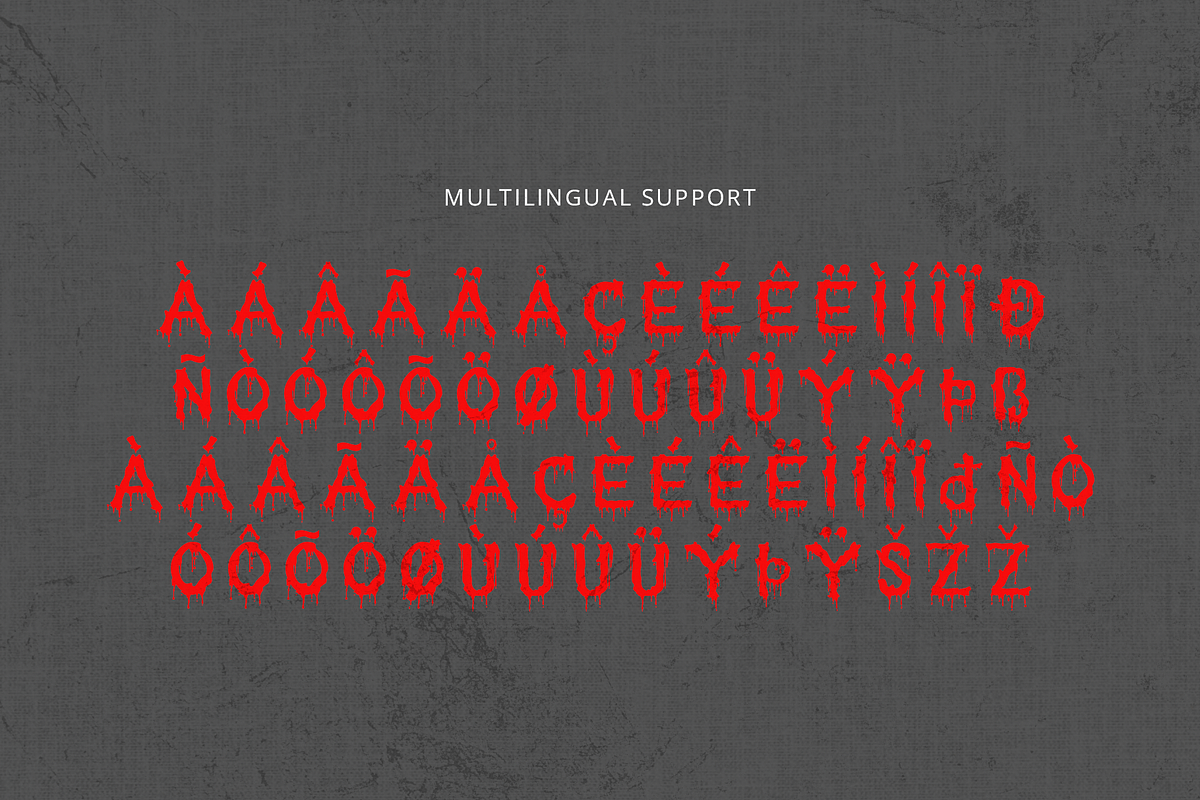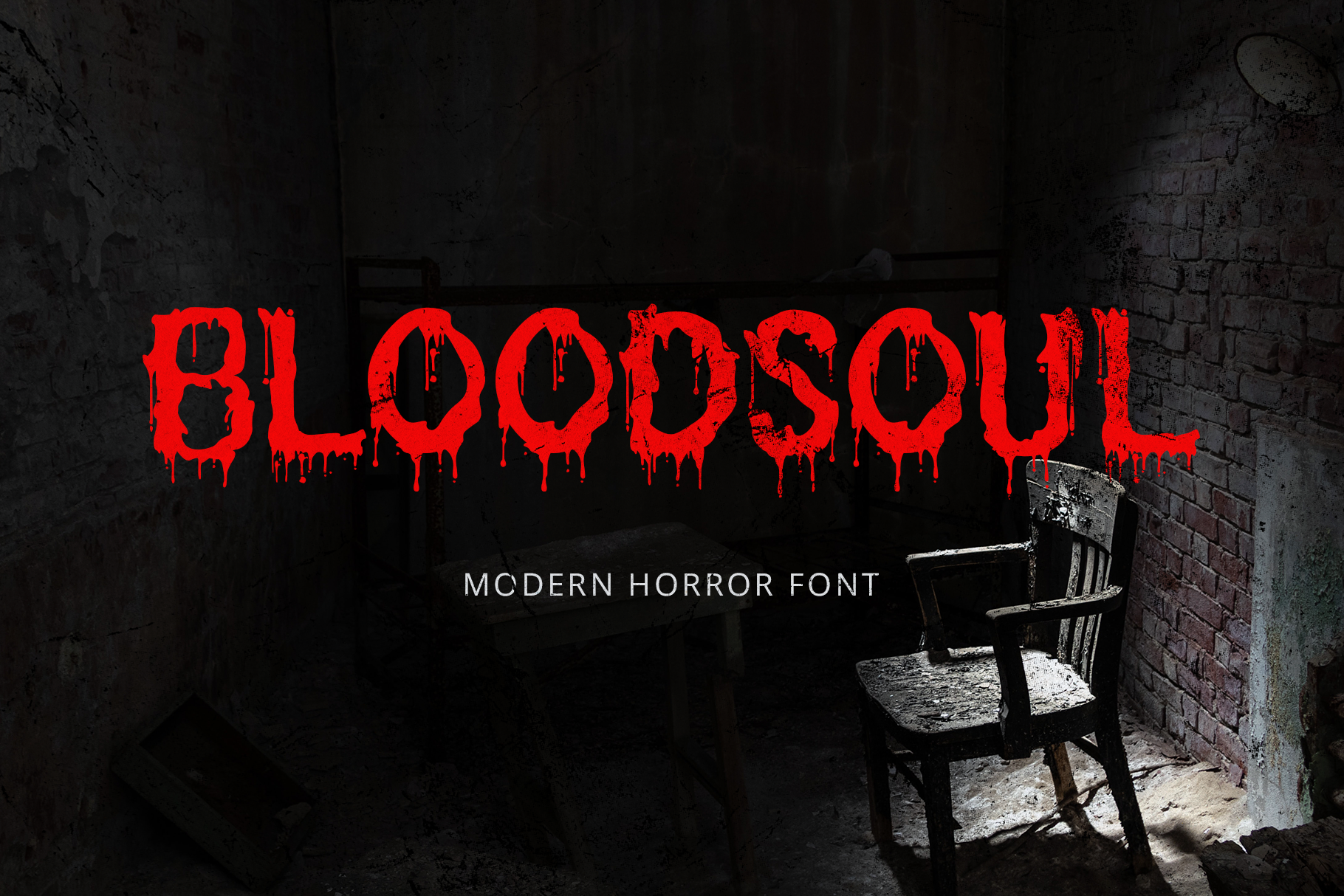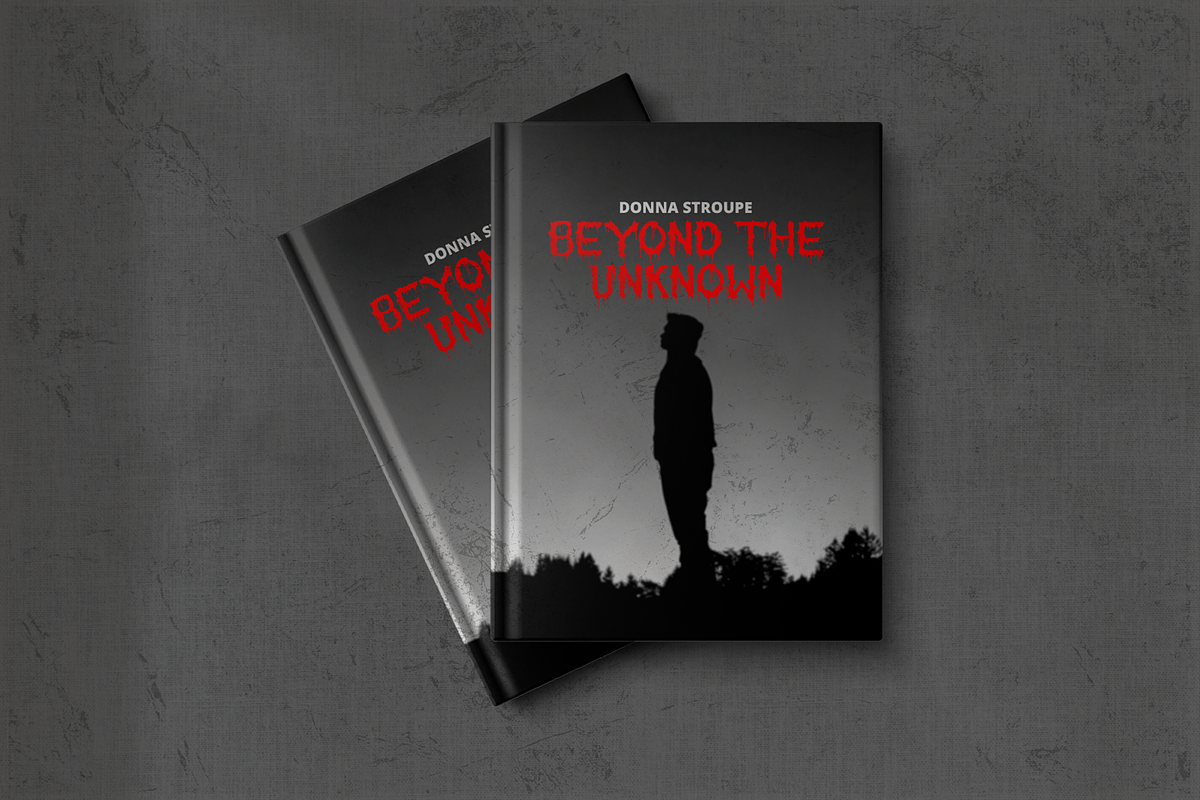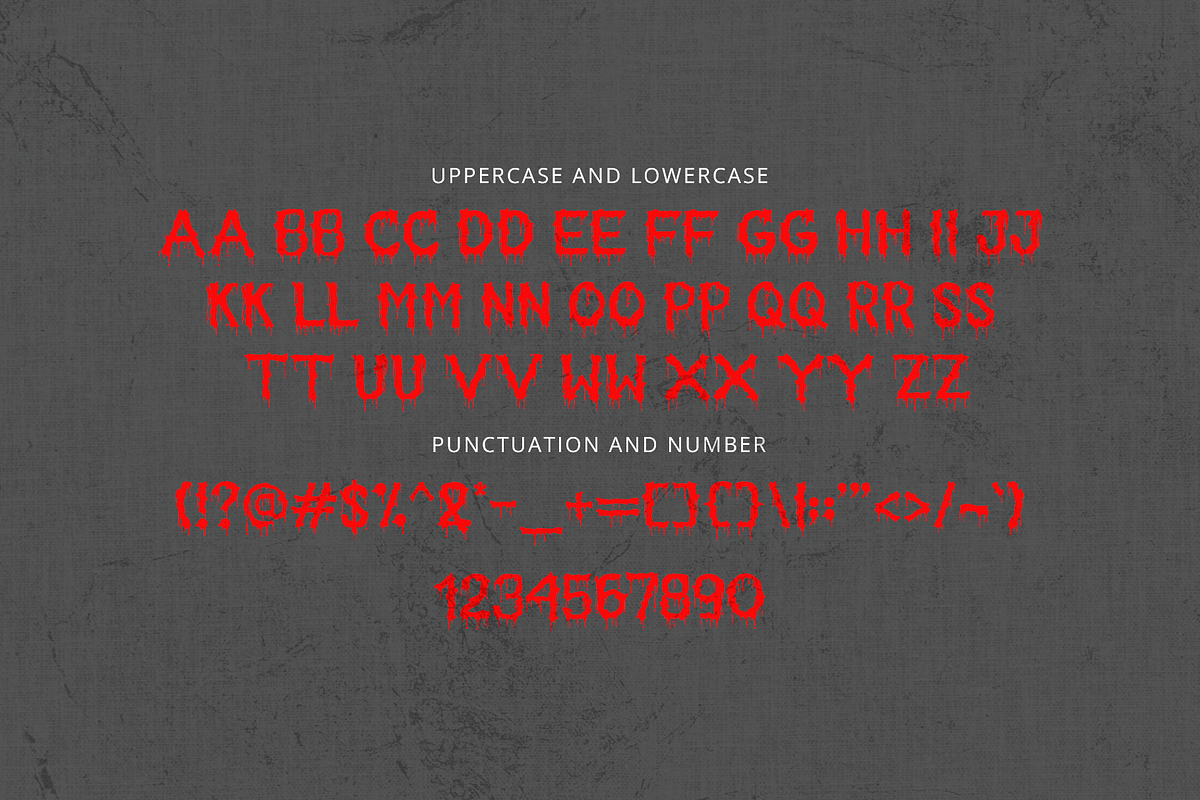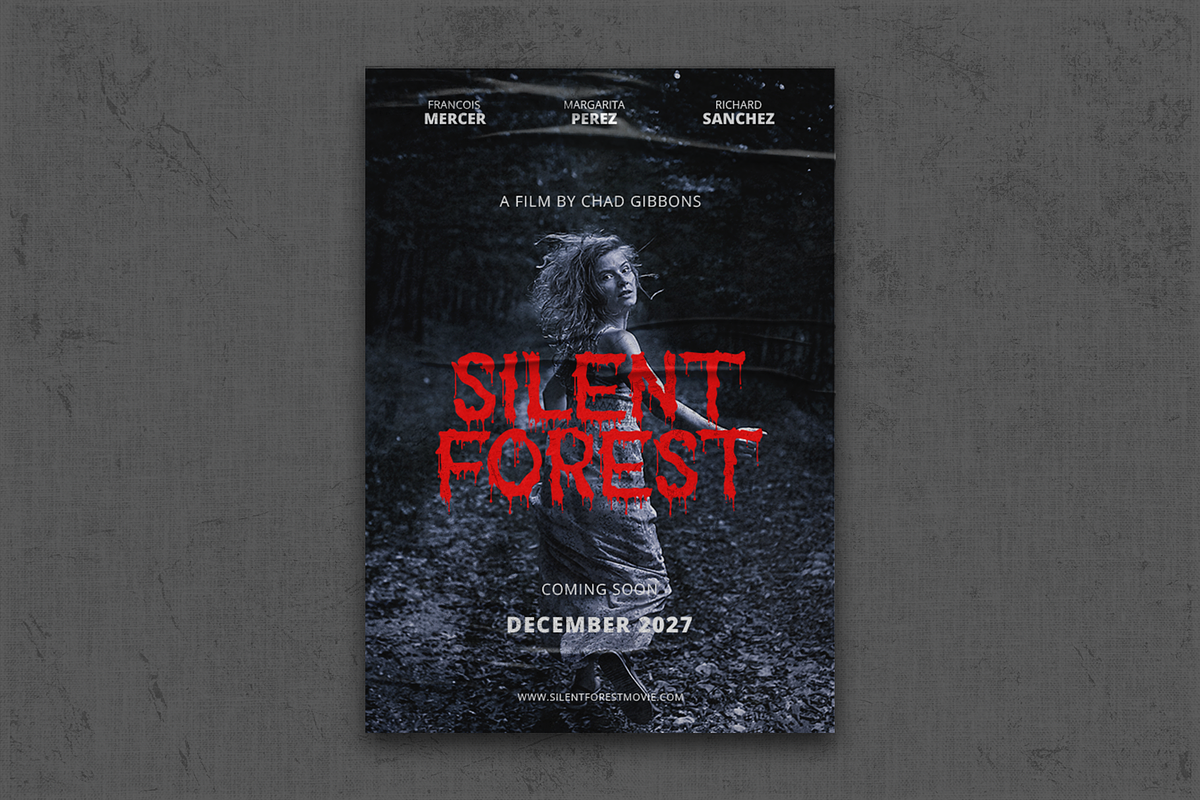
Bloodsoul - A Modern Horror Font
Bloodsoul is a chilling and captivating horror font designed to bring an eerie and sinister feel to your design projects. With its jagged letterforms and haunting style, Bloodsoul is perfect for horror movie posters, Halloween invitations, spooky branding, and thriller book covers. This font captures the essence of fear and suspense, adding a sense of dread and excitement to your work.
Crafted with a macabre touch, Bloodsoul features unique characters that ensure excellent readability while evoking a dark and menacing atmosphere. Its bold and unsettling design makes it ideal for headlines and display text, providing a memorable and spine-tingling presence. The font’s versatility allows it to seamlessly fit into various design contexts, from digital platforms to printed materials.
Embrace the darkness with Bloodsoul, a font that combines the terror of horror with modern design elements. Its unique style and adaptability make it an essential tool for designers aiming to create impactful and haunting projects. Elevate your designs with Bloodsoul and let the horror unfold.